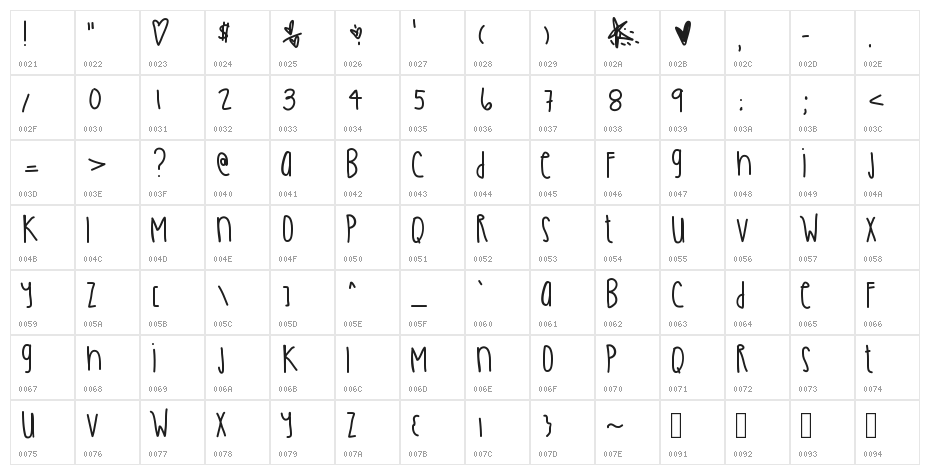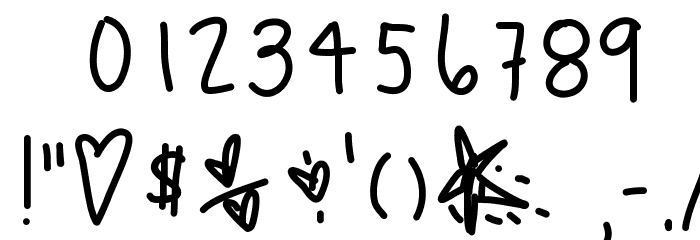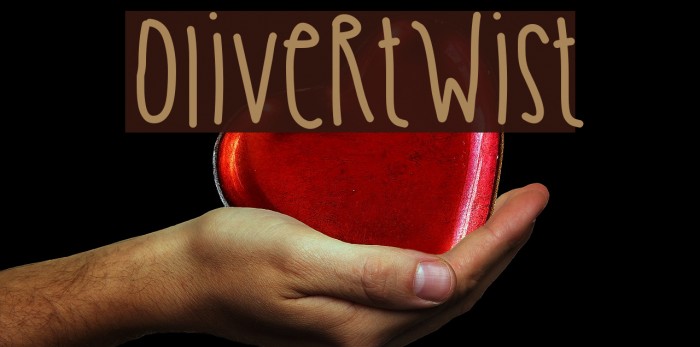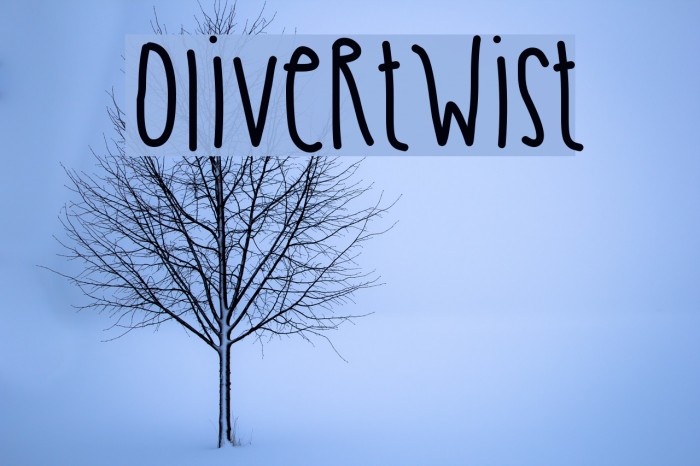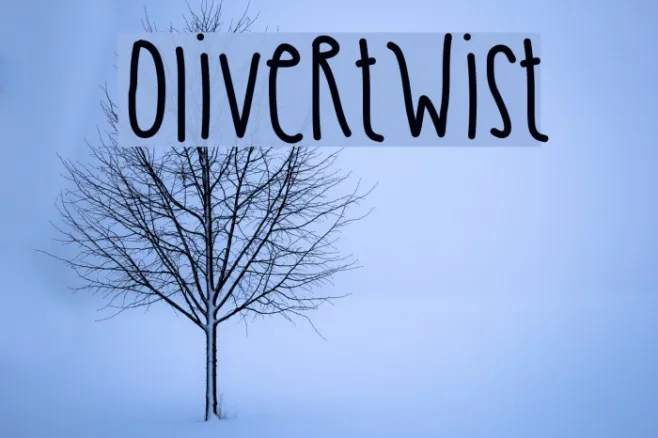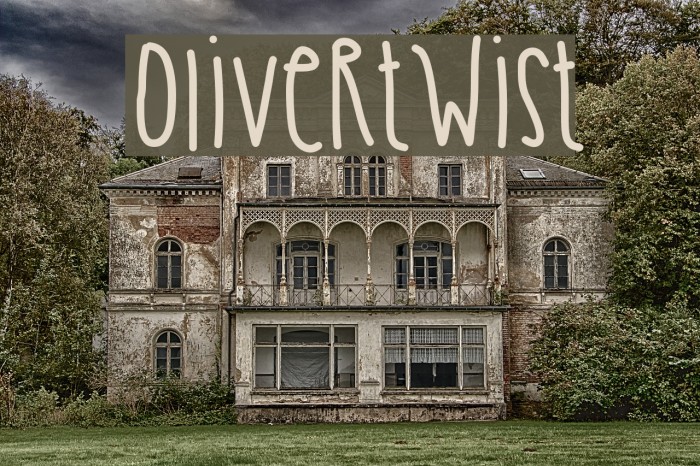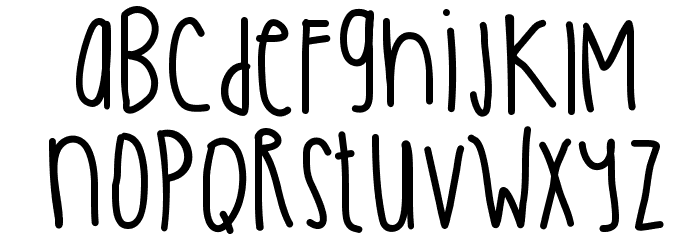
OliverTwist Font
OliverTwist Description
This playful and whimsical font features a handwritten style with a casual, friendly appearance. The letters are tall and narrow, with rounded edges and a consistent stroke width, giving it a uniform yet lively feel. The lowercase letters have a slight slant, adding to the informal and approachable nature of the design. The numbers and special characters maintain the same playful aesthetic, making it versatile for various uses. Its simplicity and charm make it ideal for projects that require a personal touch or a fun, lighthearted vibe.
| Proposed Projects | Ideal for children's books, greeting cards, personal blogs, and playful branding. |